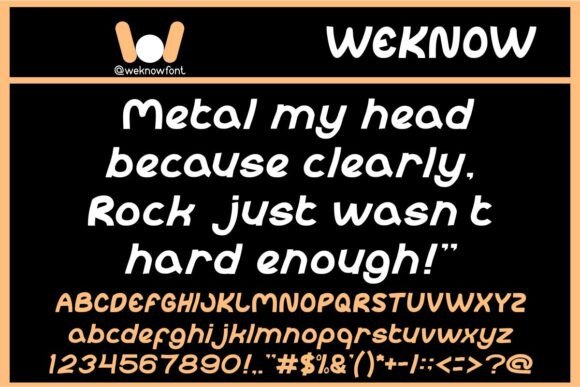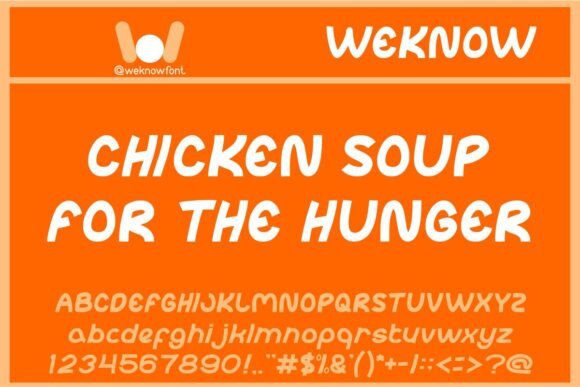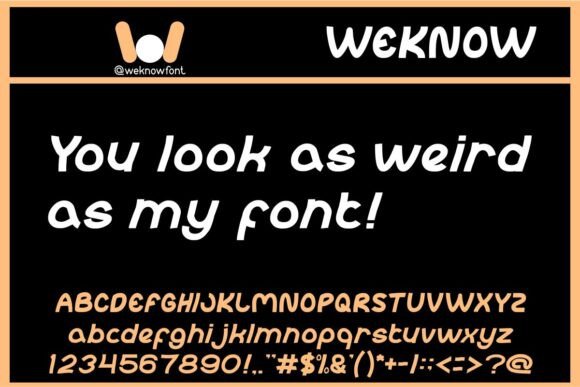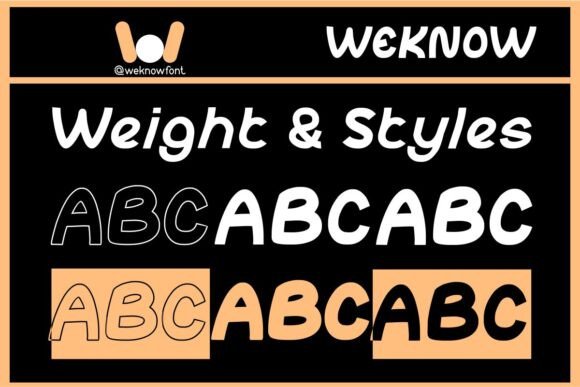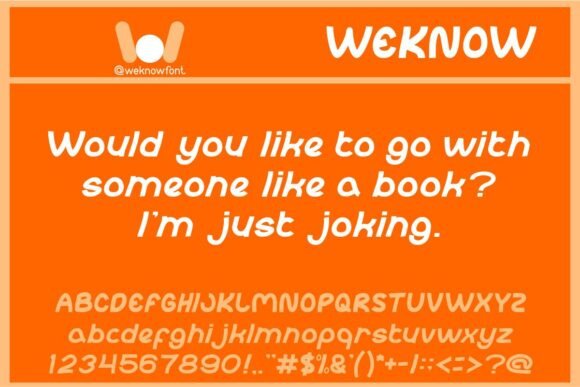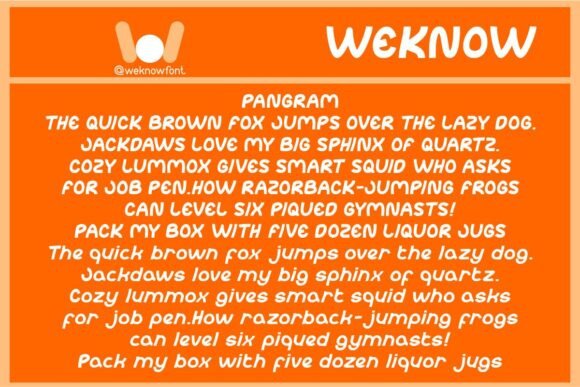
Introducing ABC Font: A Playful Hand-Drawn Typeface
Are you tired of using the same old fonts in your designs? Look no further than ABC Font, a charming hand-drawn typeface with a playful look that’s sure to add a touch of personality to your projects. In this article, we’ll take a closer look at ABC Font, its features, and how you can use it to elevate your designs.
What is ABC Font?
ABC Font is a hand-drawn typeface that exudes a sense of playfulness and whimsy. With its unique, hand-crafted letters, this font is perfect for designers and crafters looking to add a personal touch to their work. Whether you’re creating a logo, crafting a social media graphic, or designing a website, ABC Font is sure to make your project stand out.
Key Features of ABC Font
- Hand-drawn with love: Each letter in ABC Font has been carefully crafted by hand, giving it a unique and personal feel.
- Playful look: The font’s playful design makes it perfect for projects that require a touch of whimsy and fun.
- Easy to read: Despite its playful nature, ABC Font is still easy to read, making it suitable for body text and headings.
- Versatile: ABC Font can be used in a variety of projects, from digital designs to print materials.
Who is ABC Font for?
ABC Font is perfect for designers, crafters, and DIY enthusiasts who want to add a personal touch to their projects. Whether you’re a:
- Graphic designer: Looking for a unique font to use in your designs, ABC Font is a great addition to your font library.
- Crafter: Creating handmade cards, gift tags, or other paper crafts, ABC Font is a great way to add a personal touch.
- DIY enthusiast: Creating your own signs, posters, or other DIY projects, ABC Font is a great way to add a touch of personality.
How to Use ABC Font
Using ABC Font is easy! Here are a few tips to get you started:
- Pair it with other fonts: ABC Font pairs well with other fonts, so feel free to experiment with different combinations.
- Use it for headings: ABC Font is perfect for headings and titles, where its playful design can really shine.
- Add it to your digital designs: ABC Font can be used in digital designs, such as social media graphics, website headers, and more.
Here are a few tips and tricks to help you get the most out of ABC Font:
- Experiment with colors: ABC Font looks great in a variety of colors, so don’t be afraid to experiment and find the perfect hue for your project.
- Use it for quotes and phrases: ABC Font is perfect for highlighting quotes and phrases, where its playful design can add emphasis and personality.
- Create a brand identity: Use ABC Font to create a consistent brand identity across your designs, adding a touch of personality and whimsy to your brand.
In conclusion, ABC Font is a charming hand-drawn typeface with a playful look that’s sure to add a touch of personality to your designs. With its unique features, versatility, and ease of use, ABC Font is perfect for designers, crafters, and DIY enthusiasts looking to elevate their projects. So why not give ABC Font a try and see how it can add a touch of whimsy and fun to your designs?